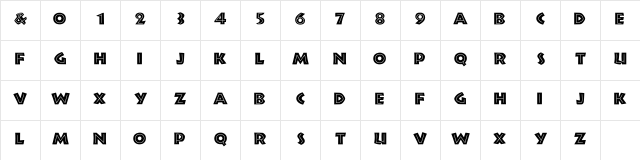
Neutown Regular
Design Context for Neutown
Neutown is a composed and adaptable typeface that performs quietly and consistently across a wide range of design contexts.
Pro Tip: Use Neutown in both headline and body roles to test its range before committing to a single application.